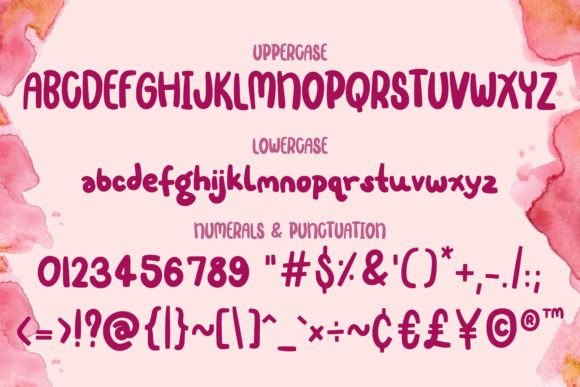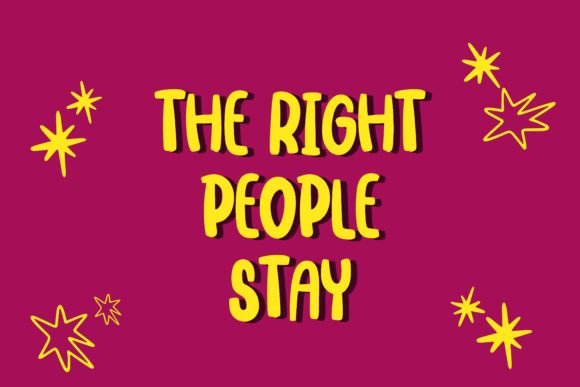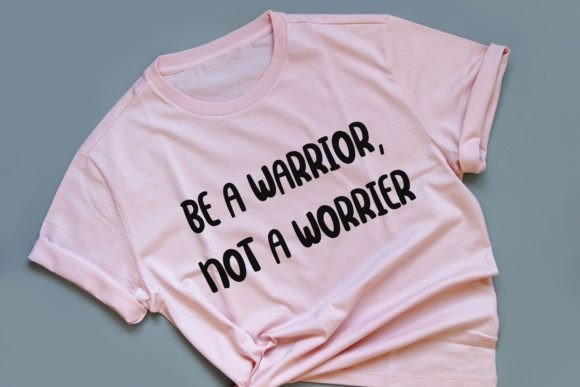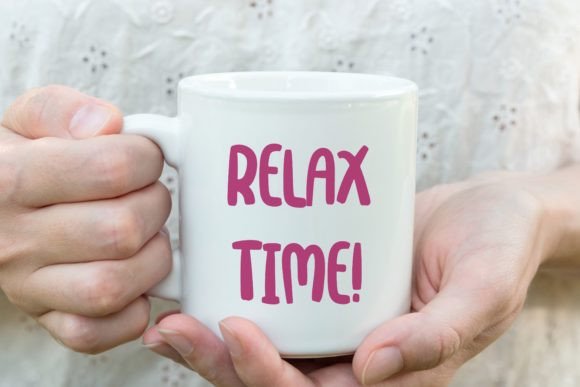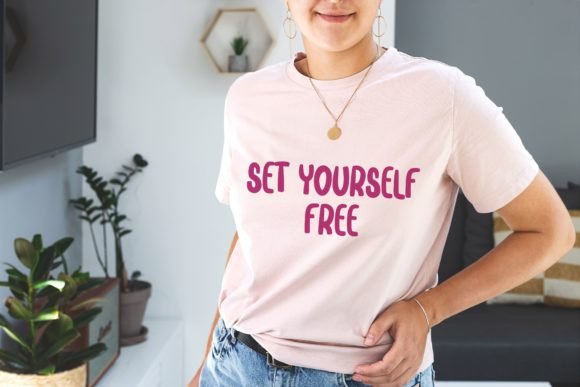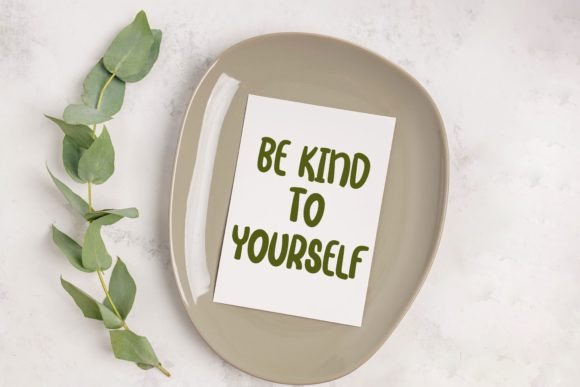
Introduction to Mckenzie Font
Have you ever been brainstorming for a creative project, pouring over inspiration boards and sketchpads, trying to find that perfect font to bring your idea to life? I’m sure you know the feeling – it’s like searching for a missing puzzle piece that will make your design truly shine. For designers, finding the right font can make all the difference between a mediocre project and a masterpiece.
That’s where the Mckenzie Font comes in – a modern and friendly handwritten font that’s perfect for creating quotes, logos, or any lettering product. With its high-quality design and versatility, Mckenzie Font is an invaluable resource for any creative project. Whether you’re working on a design for a blog, a social media campaign, or a business logo, this font is sure to make your design stand out.
Not only is Mckenzie Font a valuable design resource, but it’s also free to download, making it accessible to designers of all levels. Plus, with a transparent background option, you can easily customize it to fit your design needs. In this article, we’ll take a closer look at the Mckenzie Font and explore its many uses and benefits for designers.
Key Features of Mckenzie Font
- High-quality typography: Mckenzie Font offers a professional and elegant look, making it perfect for creative projects.
- Design versatility: This font is a great design resource for various projects, including logos, branding materials, and digital content.
- Transparent background: The font comes with a transparent background, allowing for seamless integration with any design element.
- High-resolution design: The font is designed with high resolution in mind, making it suitable for use in print and digital media.
- Unique script style: Mckenzie Font features a unique script style that adds a touch of elegance and sophistication to any design project.
Honest Review: Mckenzie Font
I recently had the chance to work with the Mckenzie Font, and I must say it’s a great addition to my design resource library. This high-quality font is perfect for any creative project that requires a unique touch.
What works well with the Mckenzie Font is its versatility. It’s available in a variety of weights, from light to bold, which makes it easy to use in different design contexts. The font also has a transparent background, making it easy to customize and pair with other design elements.
Here are some of the features that I liked:
- Available in various weights for easy customization
- Transparent background for easy design integration
While the Mckenzie Font is an excellent choice for many design projects, there are a few limitations to consider: ⚠️
- Limited language support, which may be a concern for international design projects
- No matching italics or script styles, which may limit its use in certain design contexts
Overall, I’m impressed with the Mckenzie Font and would highly recommend it to designers looking for a unique and high-quality design resource. ✨
Designing with Mckenzie Font
Mckenzie Font is a versatile design resource perfect for creating high-quality visuals. With its elegant and modern design, it’s ideal for a variety of creative projects.
Tips for Getting the Most Out of Mckenzie Font
To get the most out of Mckenzie Font, consider the following tips:
- Use the font on a transparent background to create a clean and modern look
- Experiment with different font sizes and styles to add visual interest
- Pair the font with other design elements to create a cohesive look